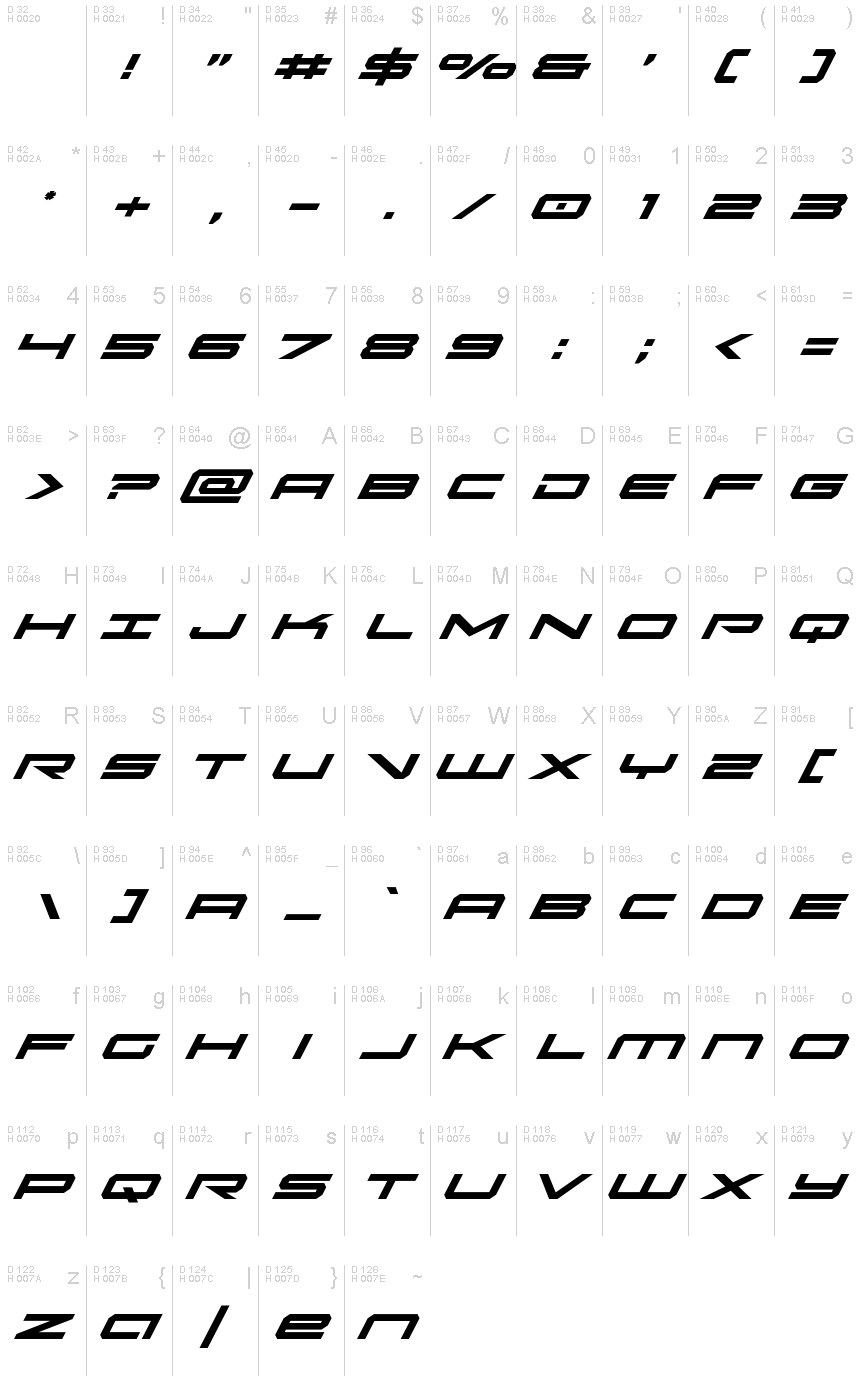
Oramac Super-Italic
Oramac Super-Italic is a futuristic display font that exudes an expansive, cutting-edge aesthetic. Designed by Daniel Zadorozny, this font boasts an eye-catching, angular letterforms that evoke a sense of technological progress and bold innovation.
The extended character widths lend an impactful, attention-grabbing presence, making Oramac Super-Italic an ideal choice for headlines, branding, and other high-visibility design applications. Its distinct futuristic style seamlessly complements modern, minimalist design sensibilities, while also standing out in more experimental, avant-garde contexts.
Oramac Super-Italic's unique visual character and versatility make it a compelling option for designers seeking to elevate their work with a striking, forward-thinking typographic statement.